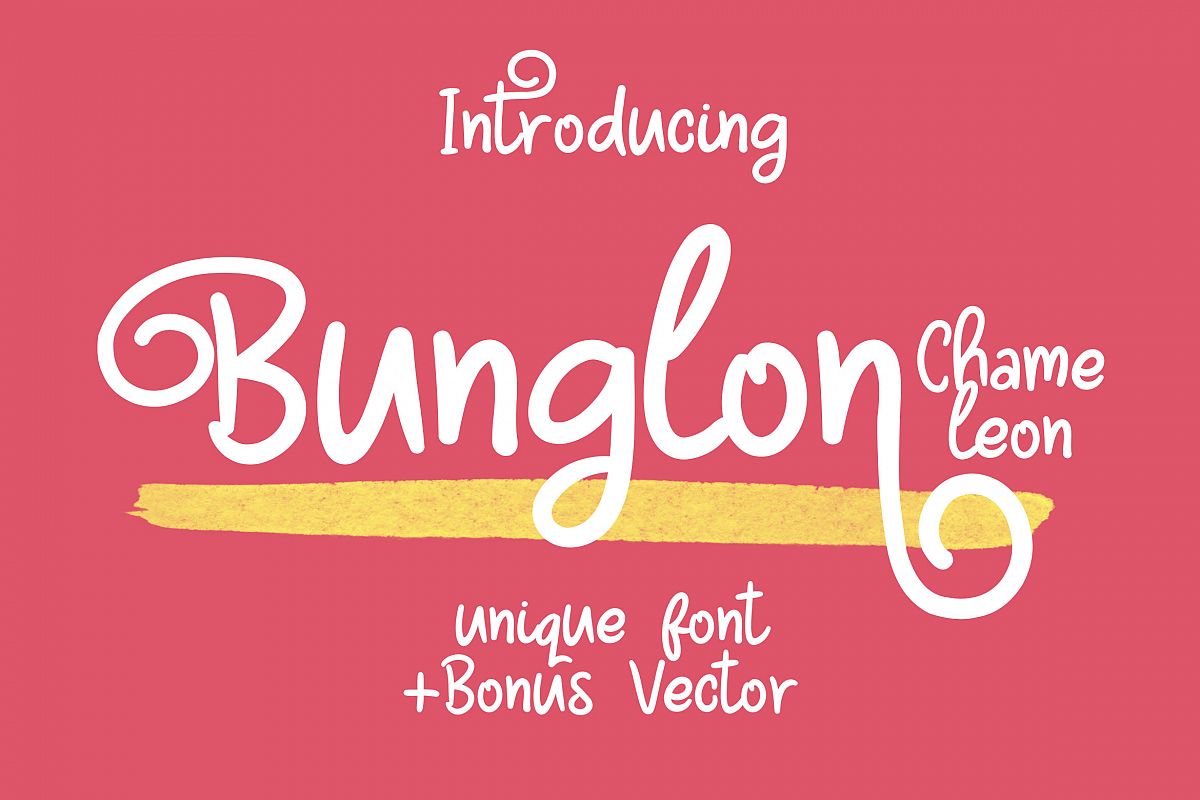
Bunglon Chameleon Bonus Vector
Bunglon Chameleon is a handmade font, Natural, and Playful. Bunglon
Chameleon is great for Fun Design, Branding, Logo Design, Lettering,
Clothing, Poster , Invitation and others.
• Opentype Features (Ligature, Alternate)
• Multilingual Support ( Danish,Finnish,English, Spanish,Dutch,German,Icelandic,Italian, Norwegian,Portuguese,Indonesian, Swedish)